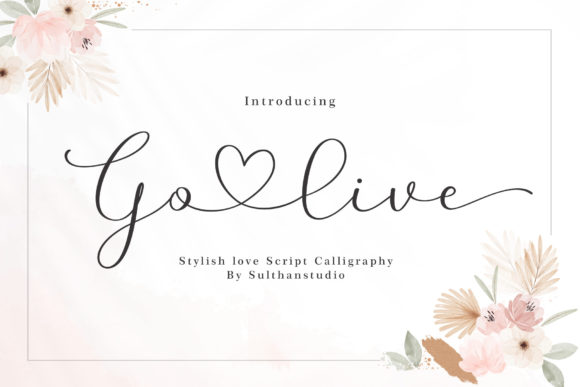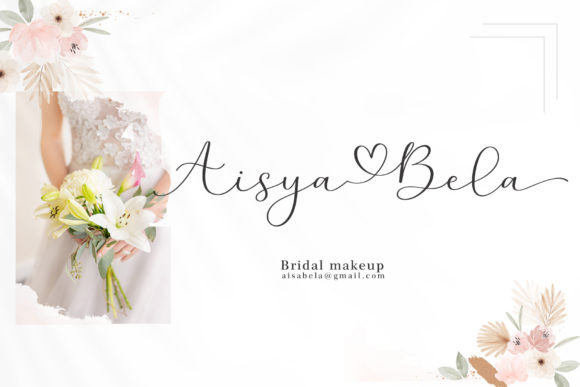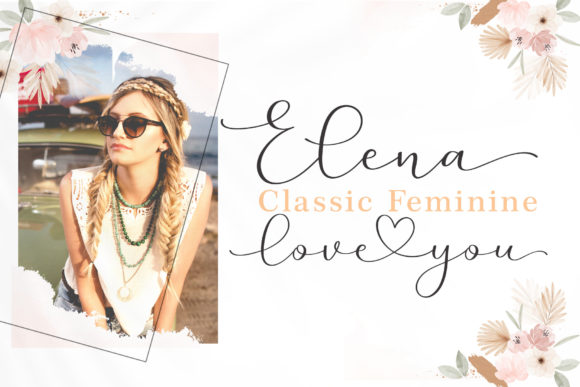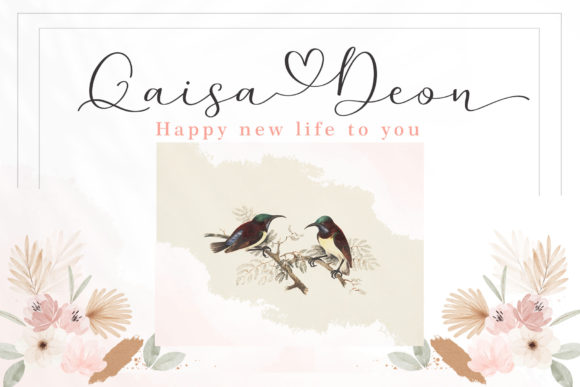
About Go Live Font
Go Live is a romantic and stylish handwritten font ready to add a sophisticated touch to any creative project! Use it simply as a stylish text overlay to any background image or anything requiring a sprinkle of elegance. This font is PUA encoded which means you can access all of the glyphs and swashes with ease!